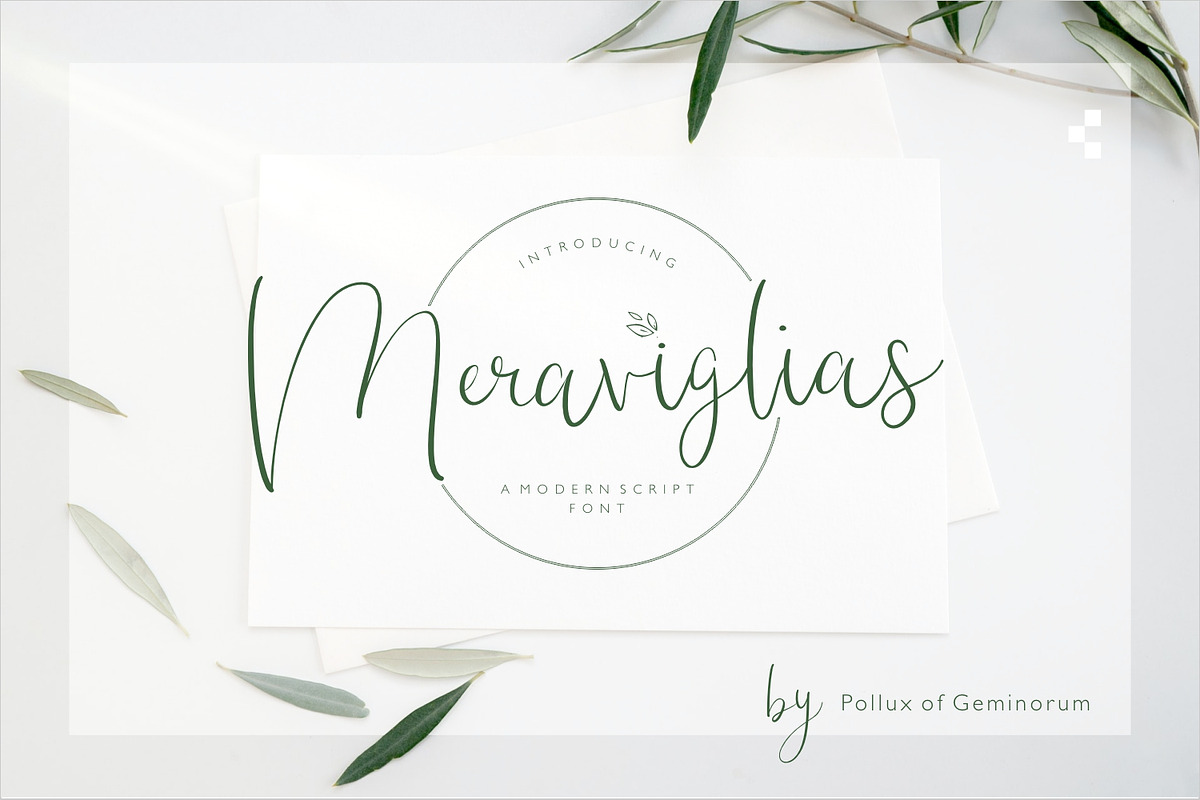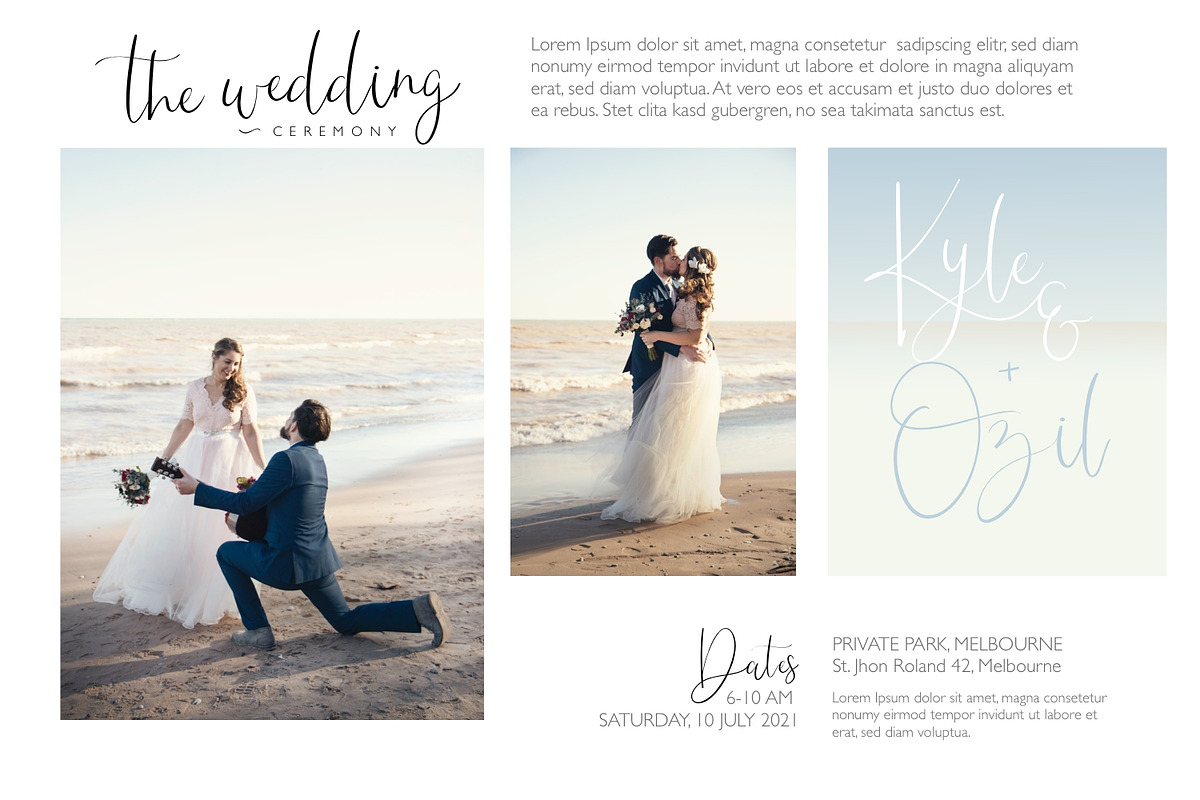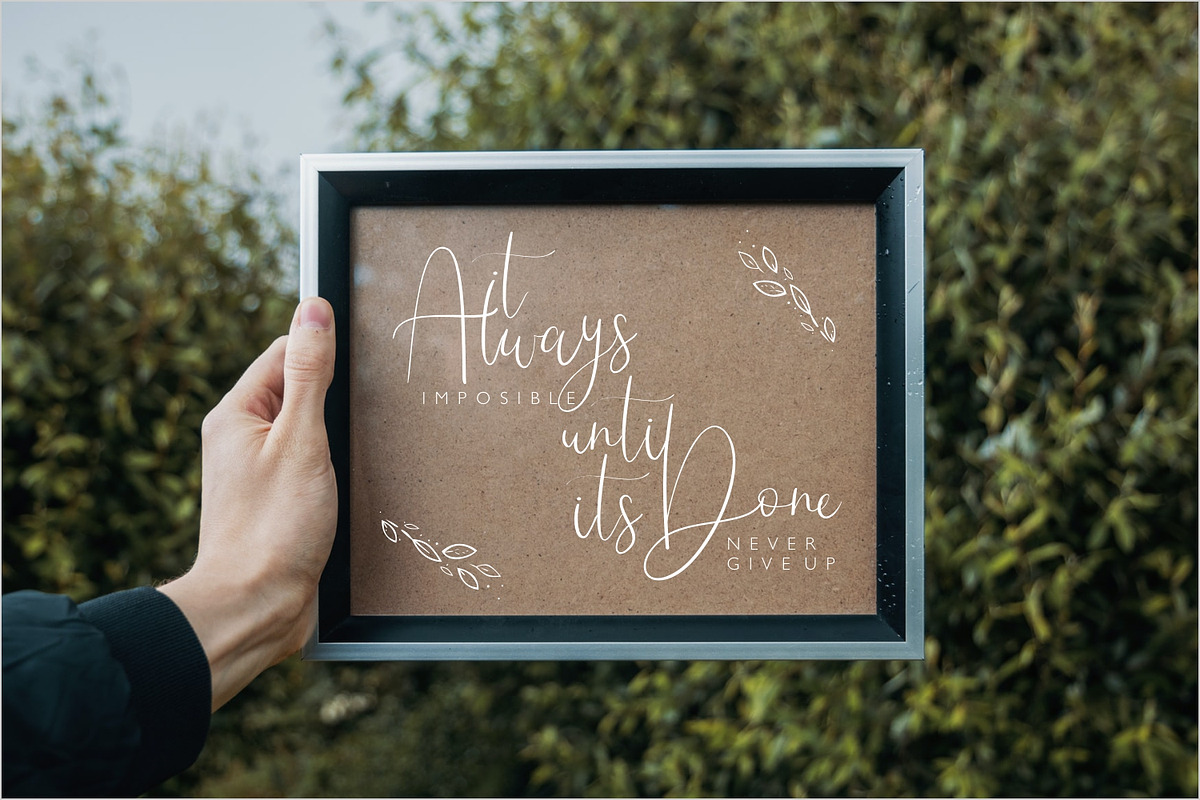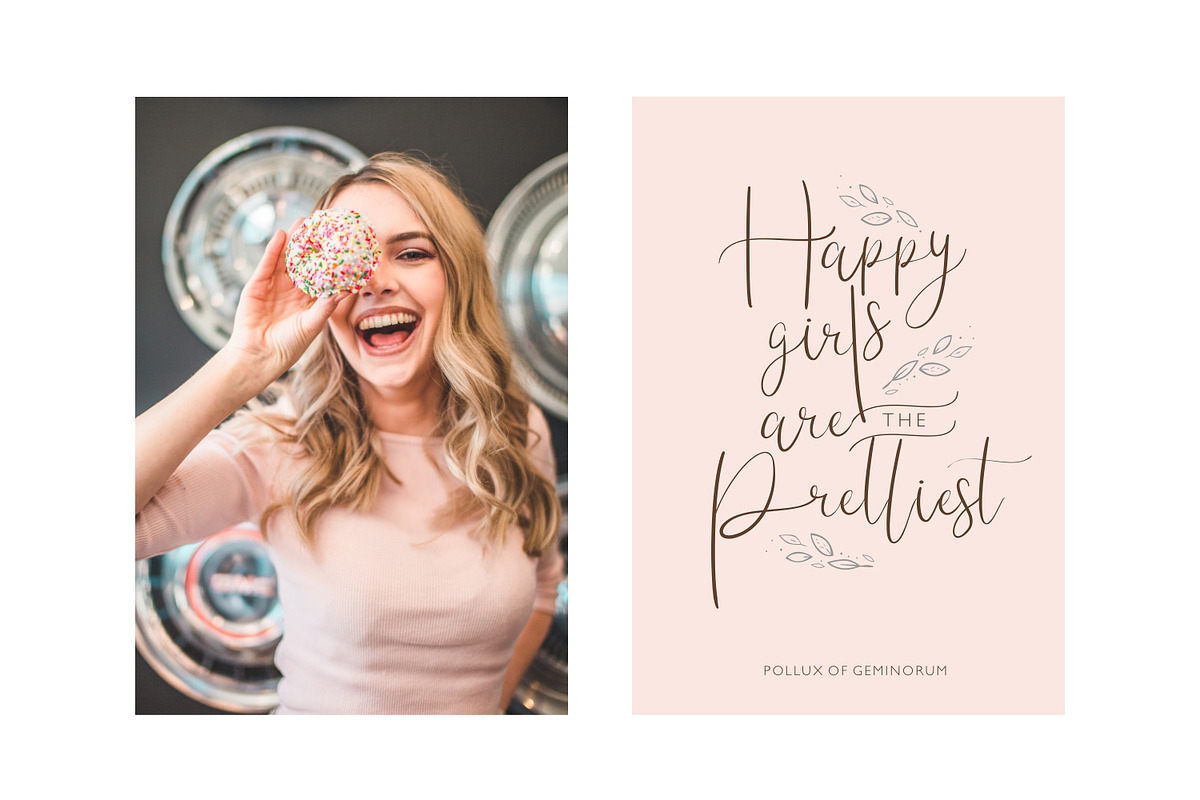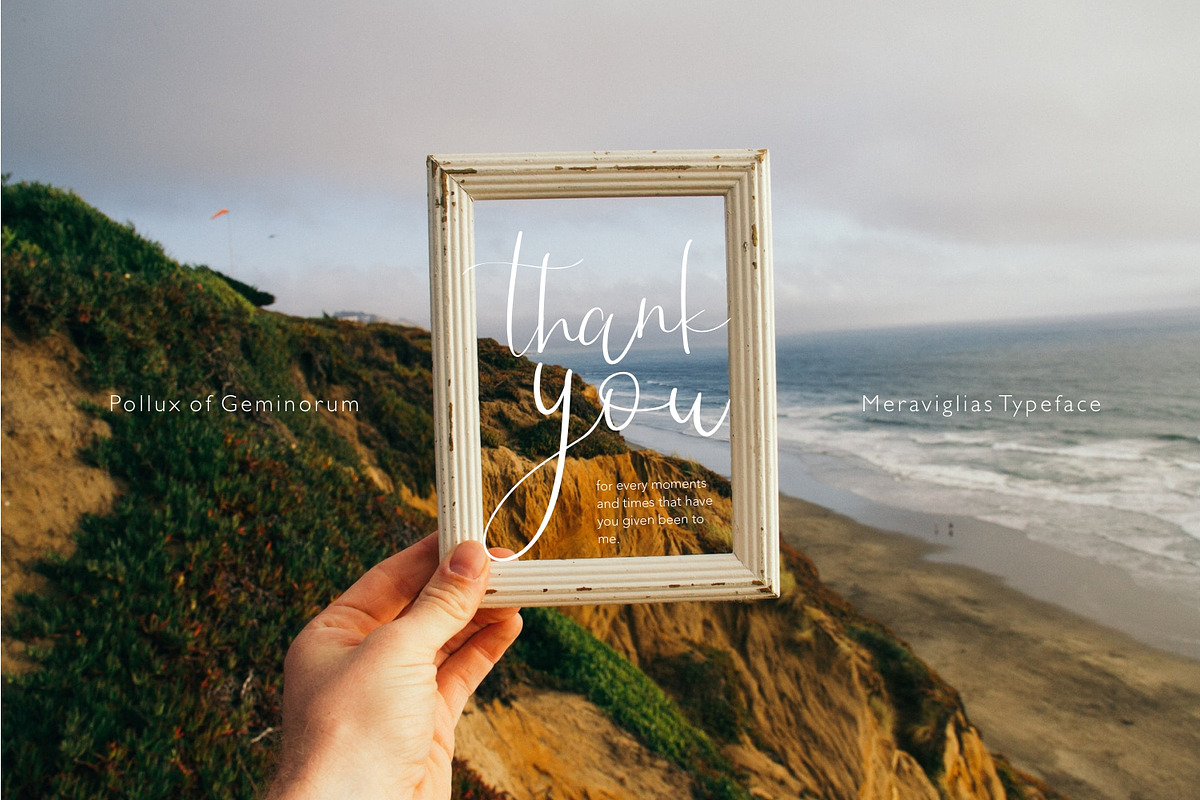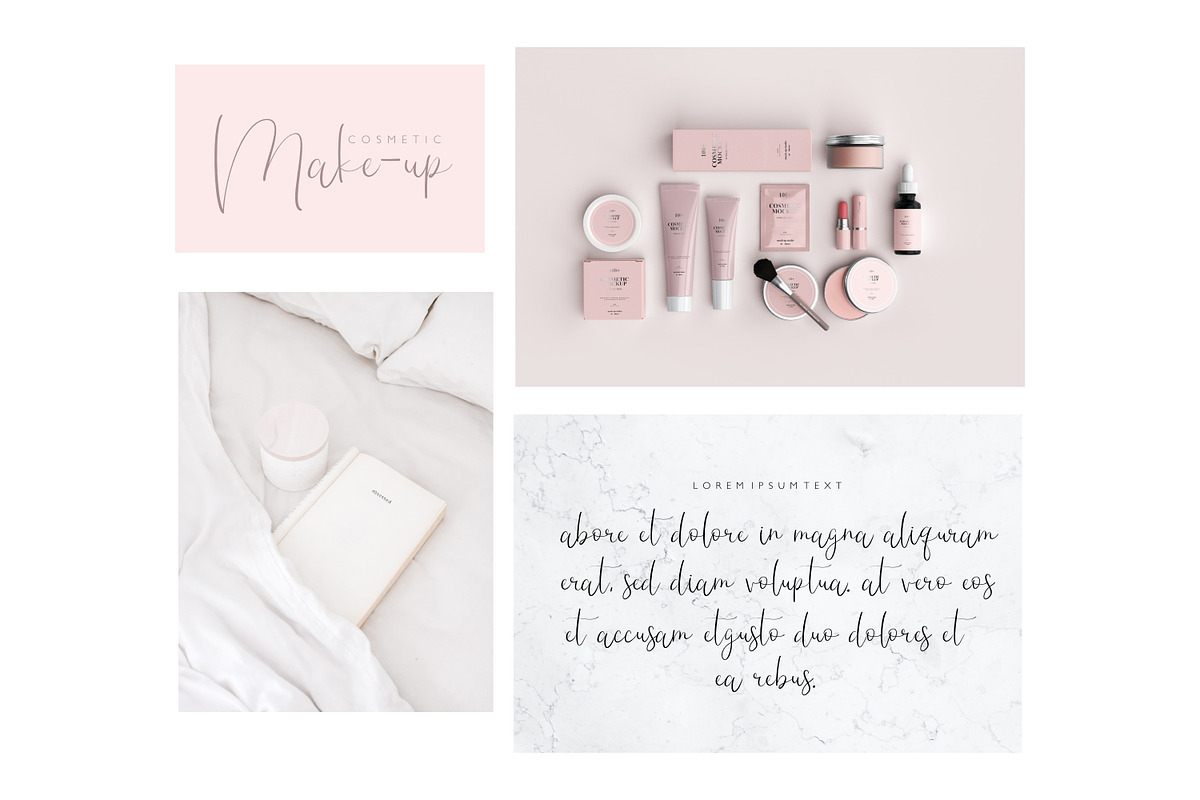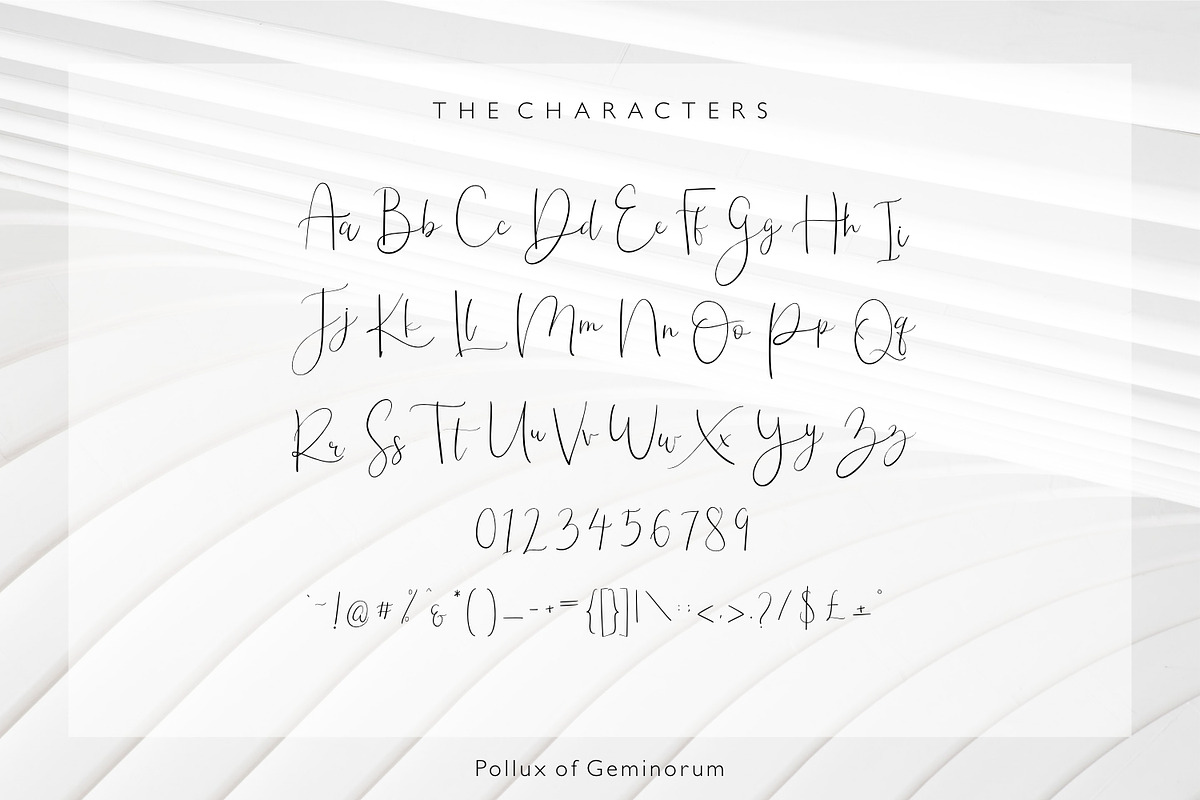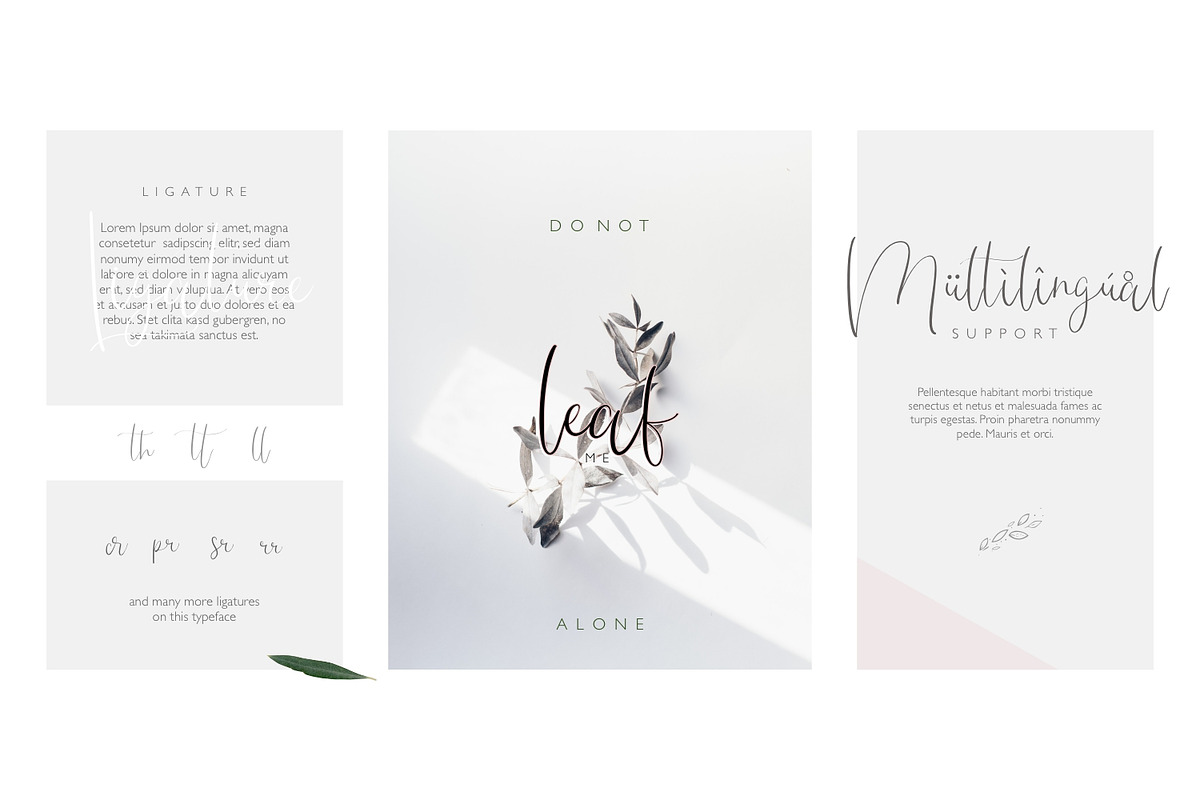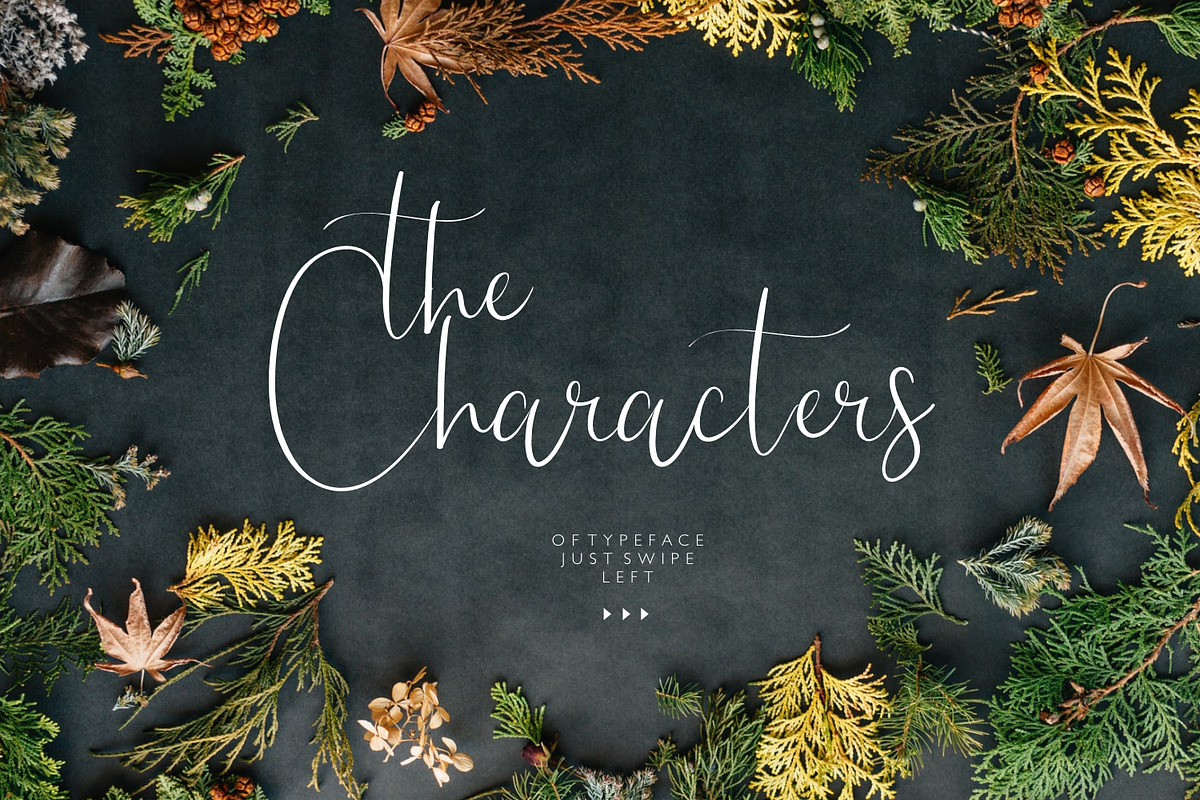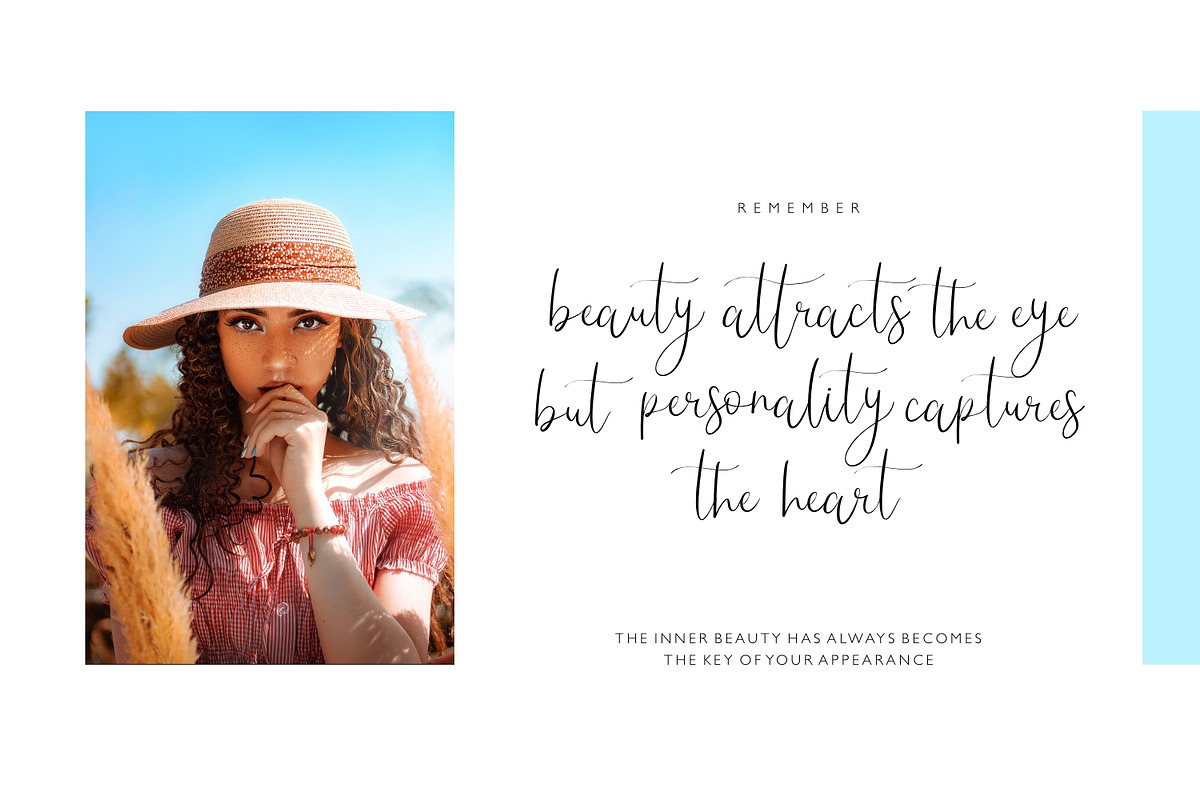
Meraviglias
Meraviglias is a delicate, elegant, and flowing handwritten font. It has beautiful and well-balanced characters and as a result, it matches a wide pool of designs. Add it to your most creative ideas and notice how it makes them come alive! This font is suitable for logos, wedding invitations, banners, social media, posters, etc.